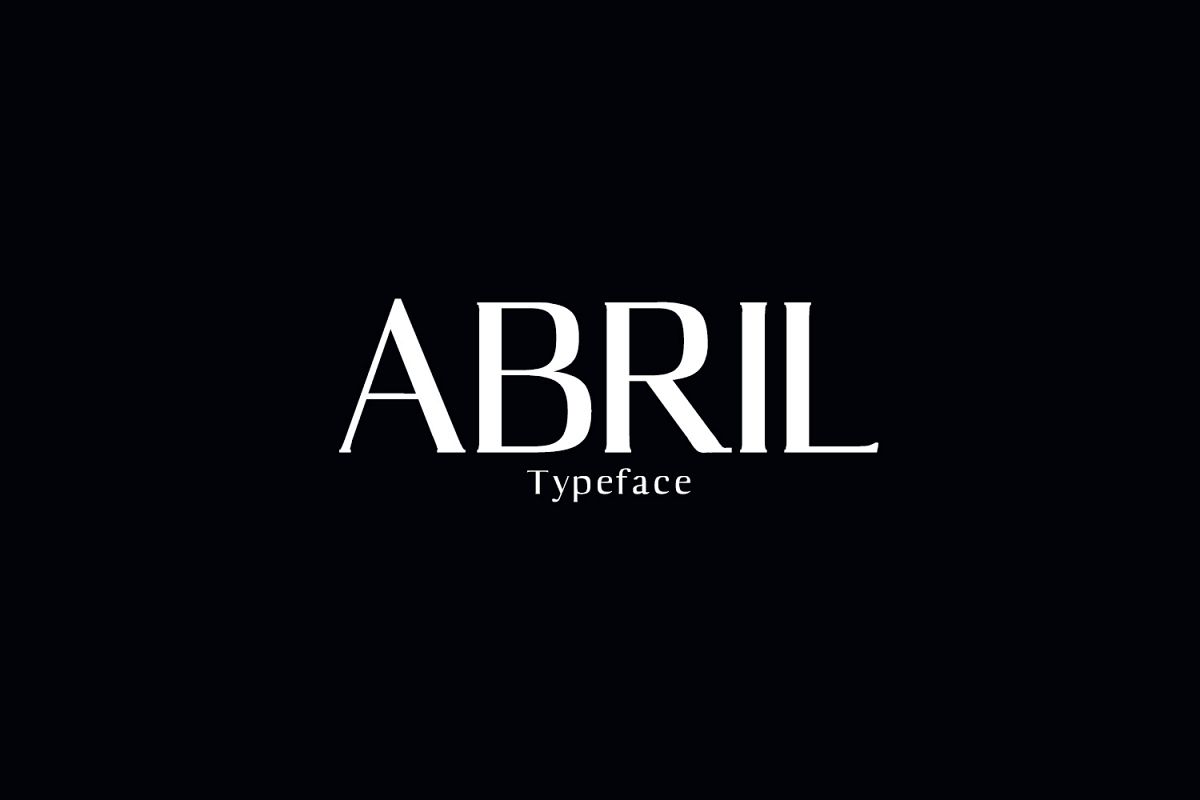
Abril Serif Typeface
Abril Serif Font is a set of 7 weights font family and it is good for making creative displays and it has unique and modern serif layout. It Suits best for modern / clean designs, logos, headlines, banners and templates etc. It looks gorgeous in all caps with a wide-set spacing if you want to try a classy look, or beautiful on its own in capital and lowercase letters for something completely timeless.Features
• Regular, Light, Thin, Medium & Italics Weights
Abril Font Features:
• Uppercase Multilingual Letters
• Lowercase Multilingual Letters
• Alternative